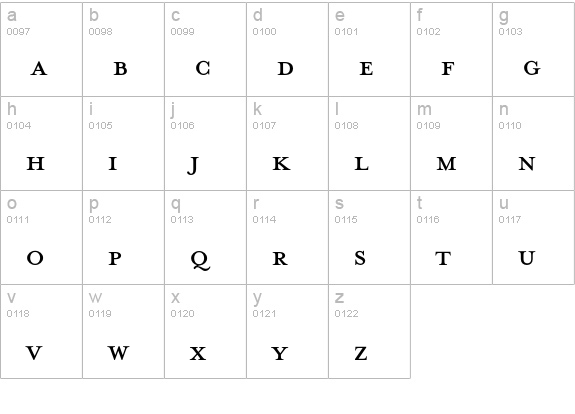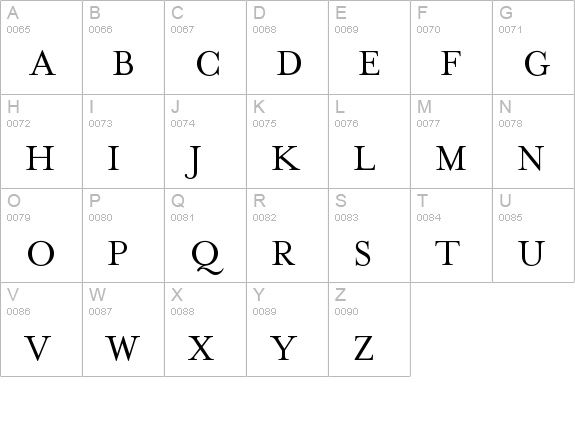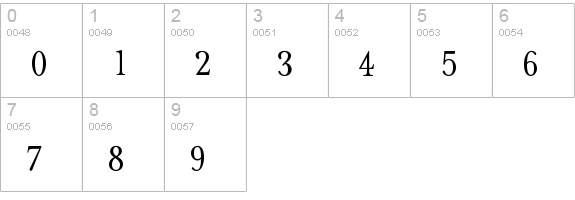
MrsEavesPetiteCaps Font Details
MrsEavesPetiteCaps font is a delicate and elegant typeface that exudes sophistication and charm. With its petite caps design, this font offers a unique and refined look that is perfect for adding a touch of class to any project. The clean lines and graceful curves of MrsEavesPetiteCaps font make it ideal for use in invitations, stationery, and other formal applications. What's even better is that this exquisite font is available for free download at FontsMarket.com. You can easily access and use MrsEavesPetiteCaps font to elevate your designs and make a lasting impression. Don't miss out on the opportunity to enhance your projects with this beautiful and versatile typeface. Download MrsEavesPetiteCaps font today and let your creativity shine!